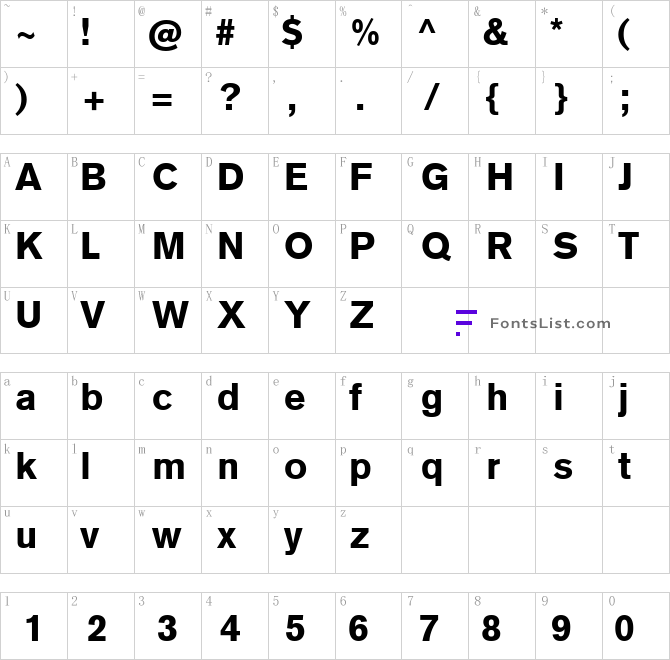
Basic-Commercial-LT-Com-Black.ttf is a very beautiful artistic font, Basic-Commercial-LT-Com-Black.ttf is widely used in the design and printing of various books and pictures,Basic-Commercial-LT-Com-Black.ttf has a strong visual impact,Basic-Commercial-LT-Com-Black.ttf is a commonly used font in newspapers, magazines and books, and is used in posters, e-commerce Poster design, store design, logo design, font design and other fields.Basic-Commercial-LT-Com-Black.